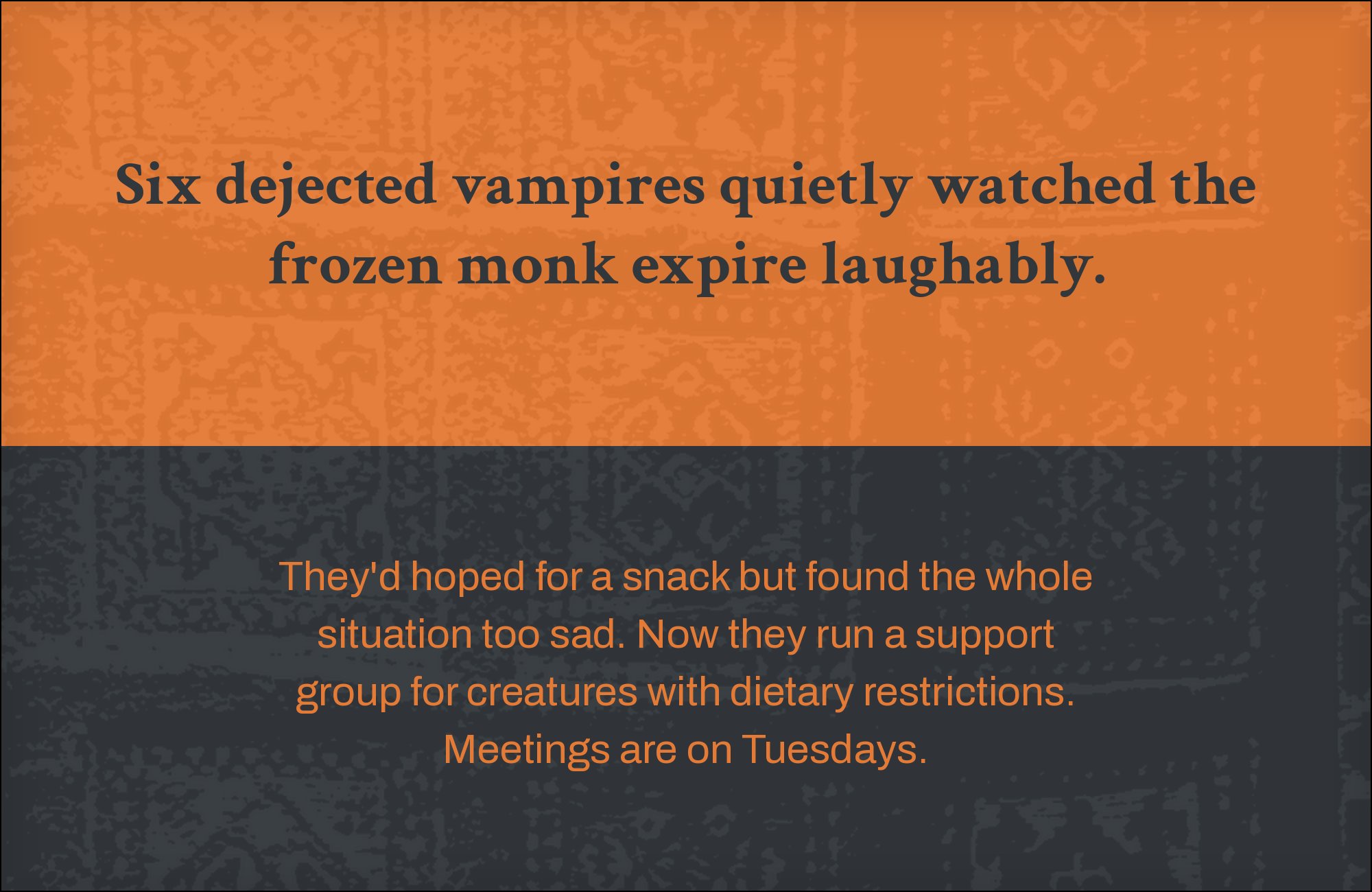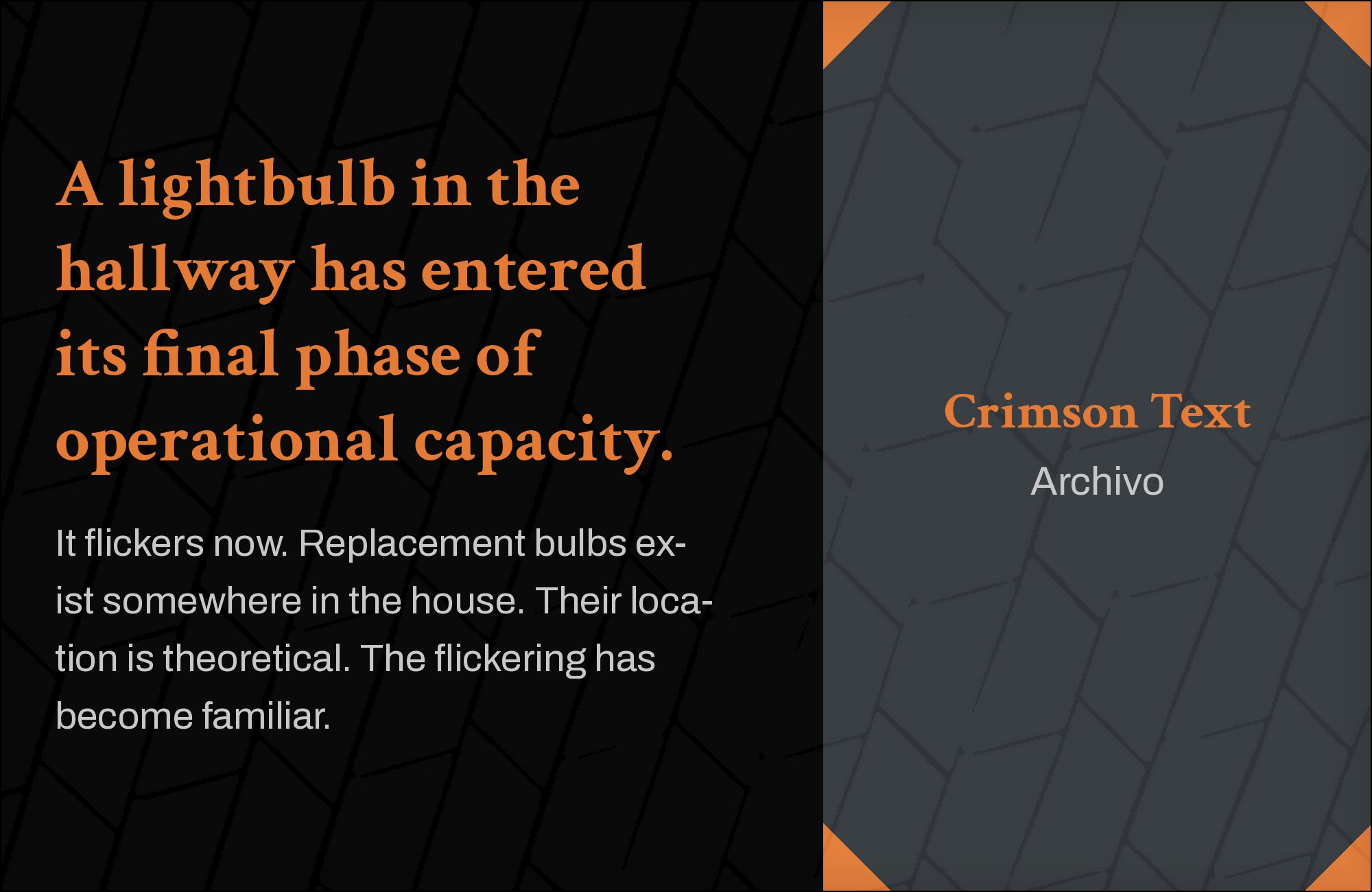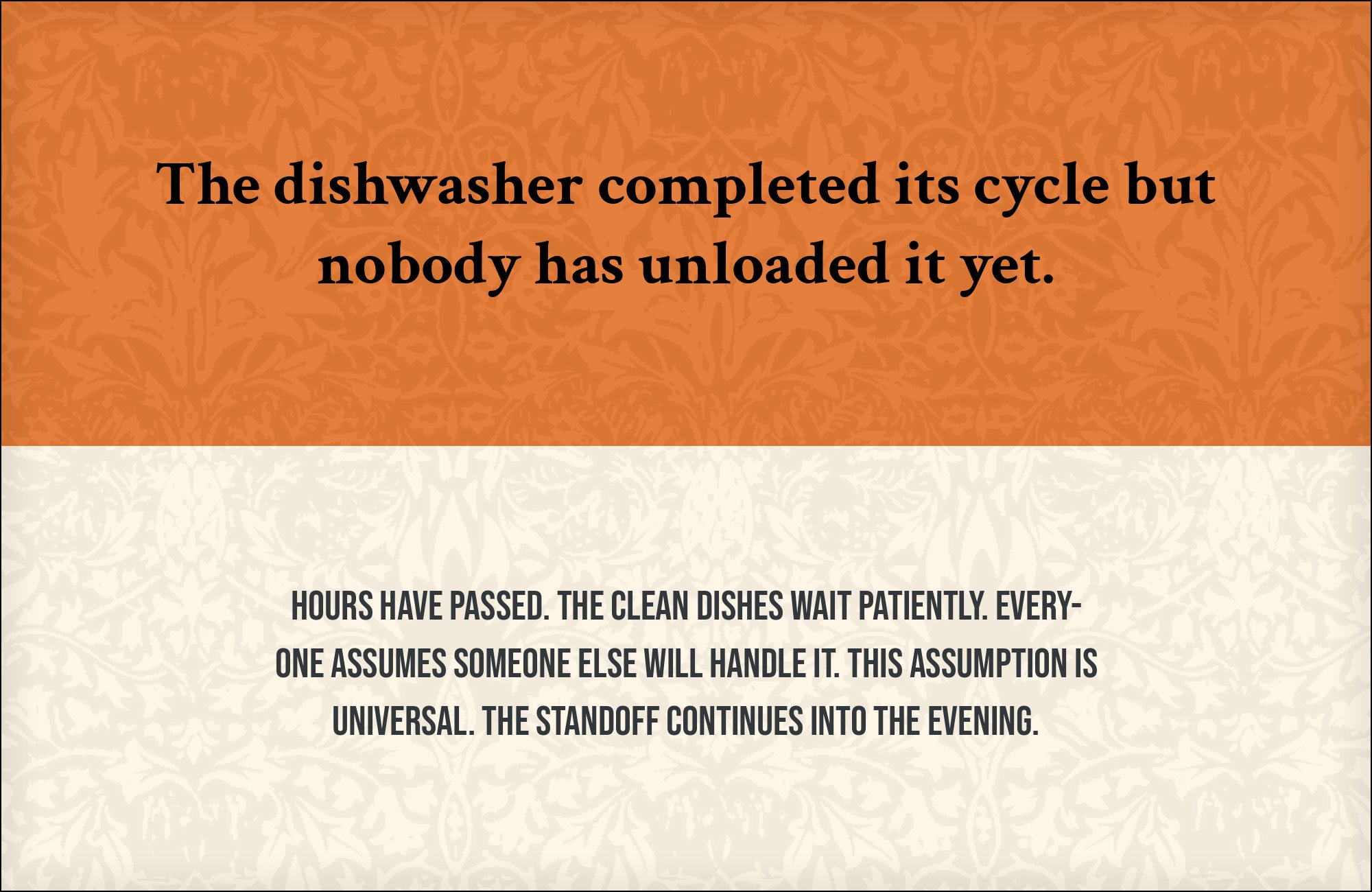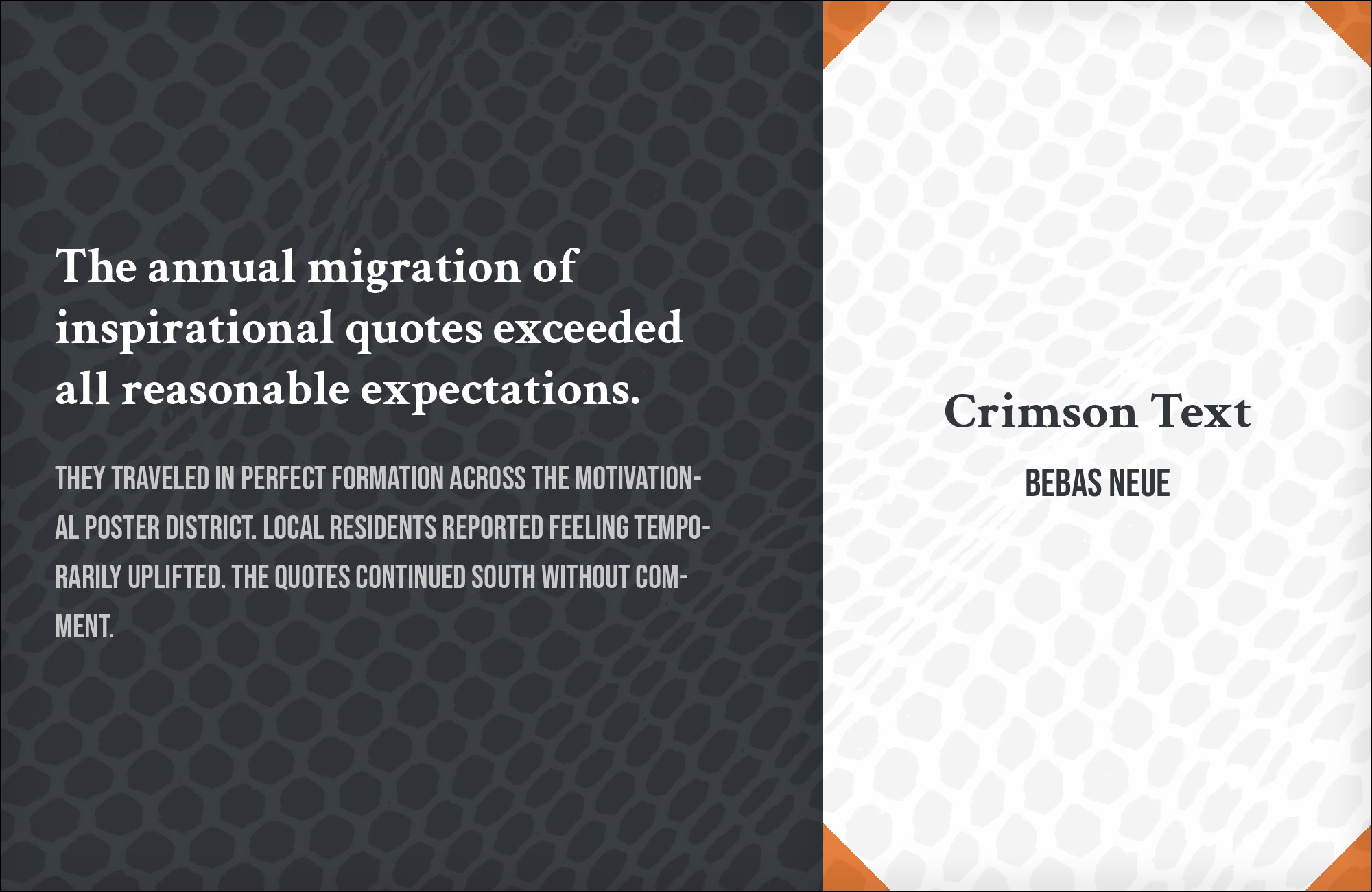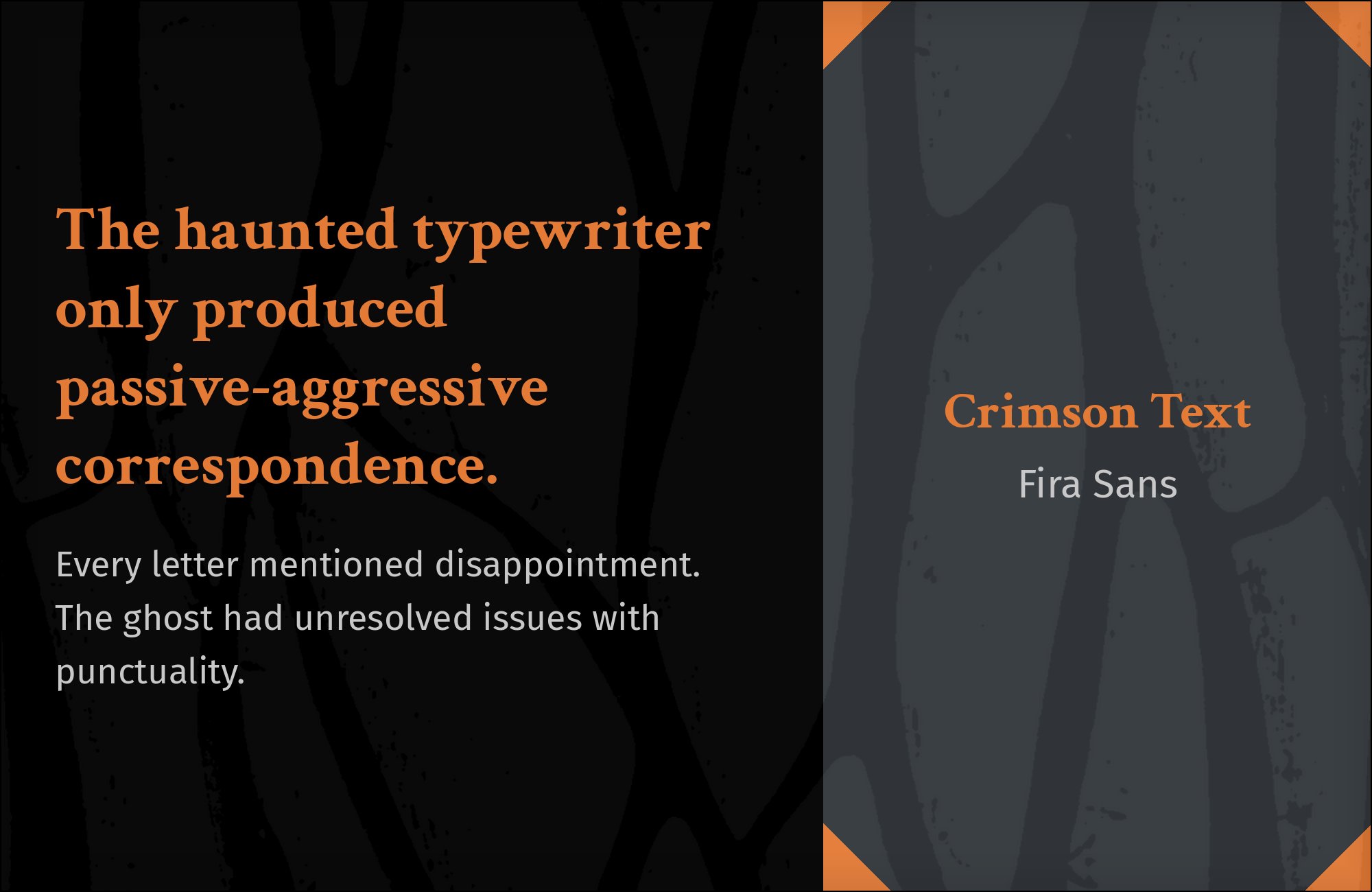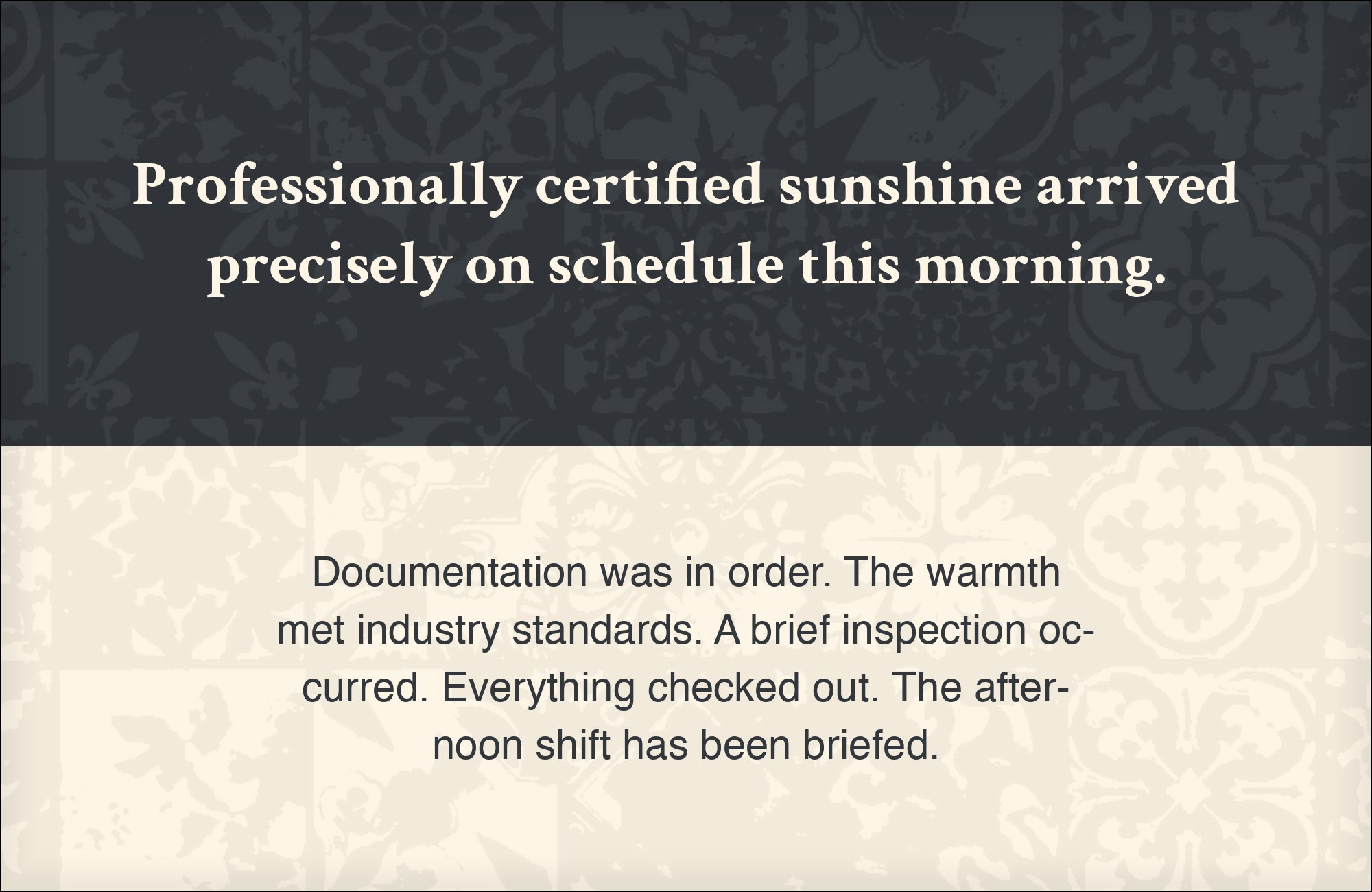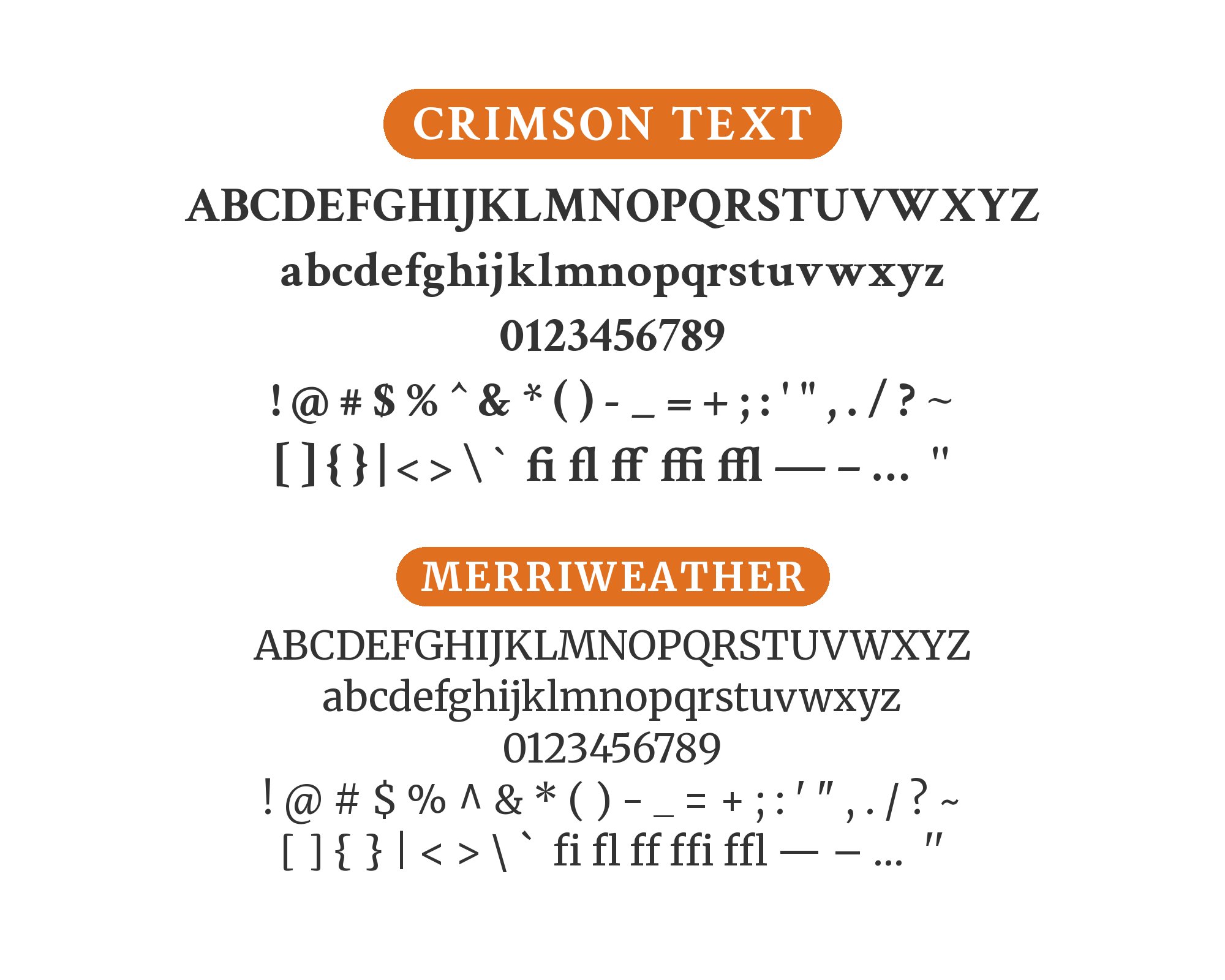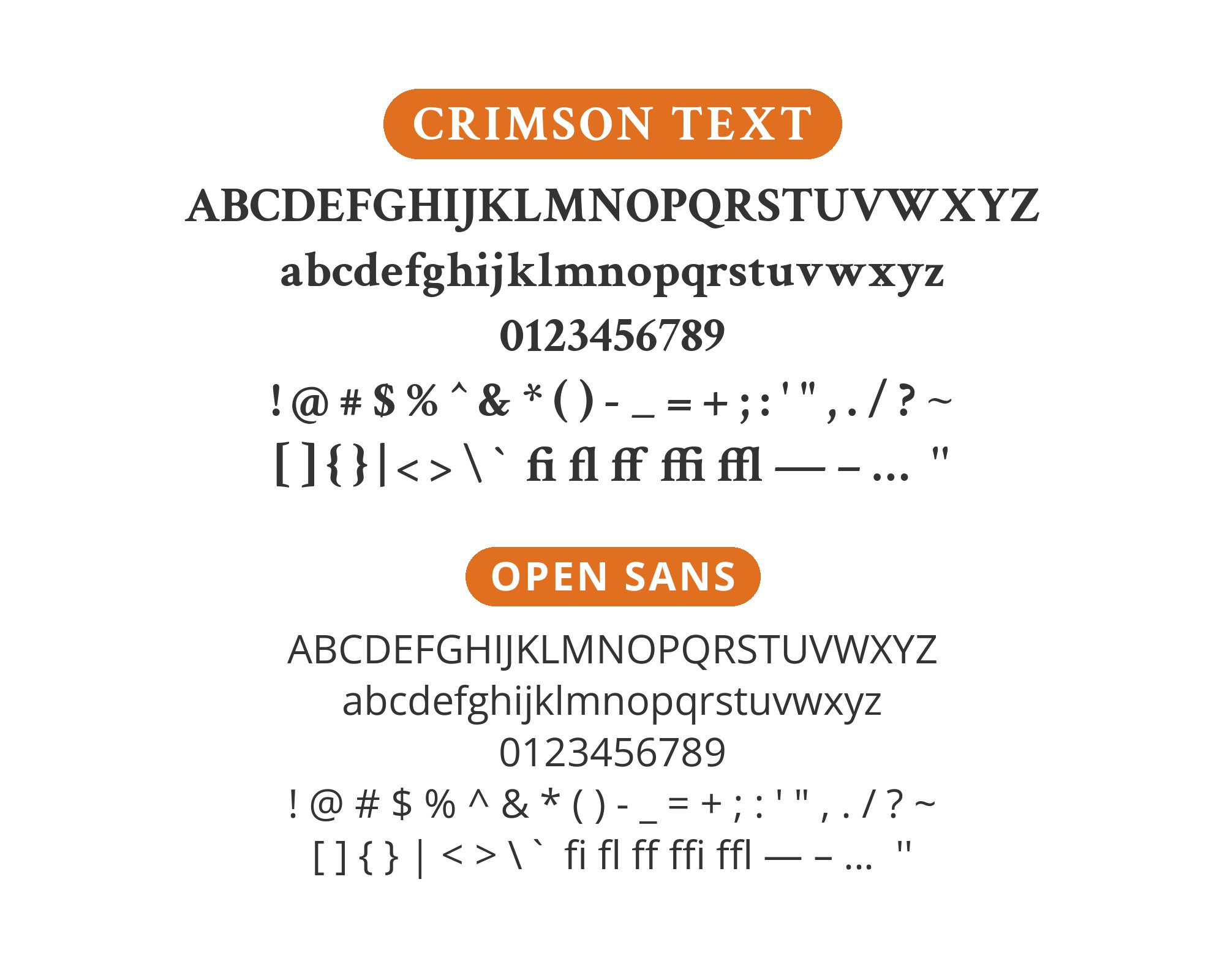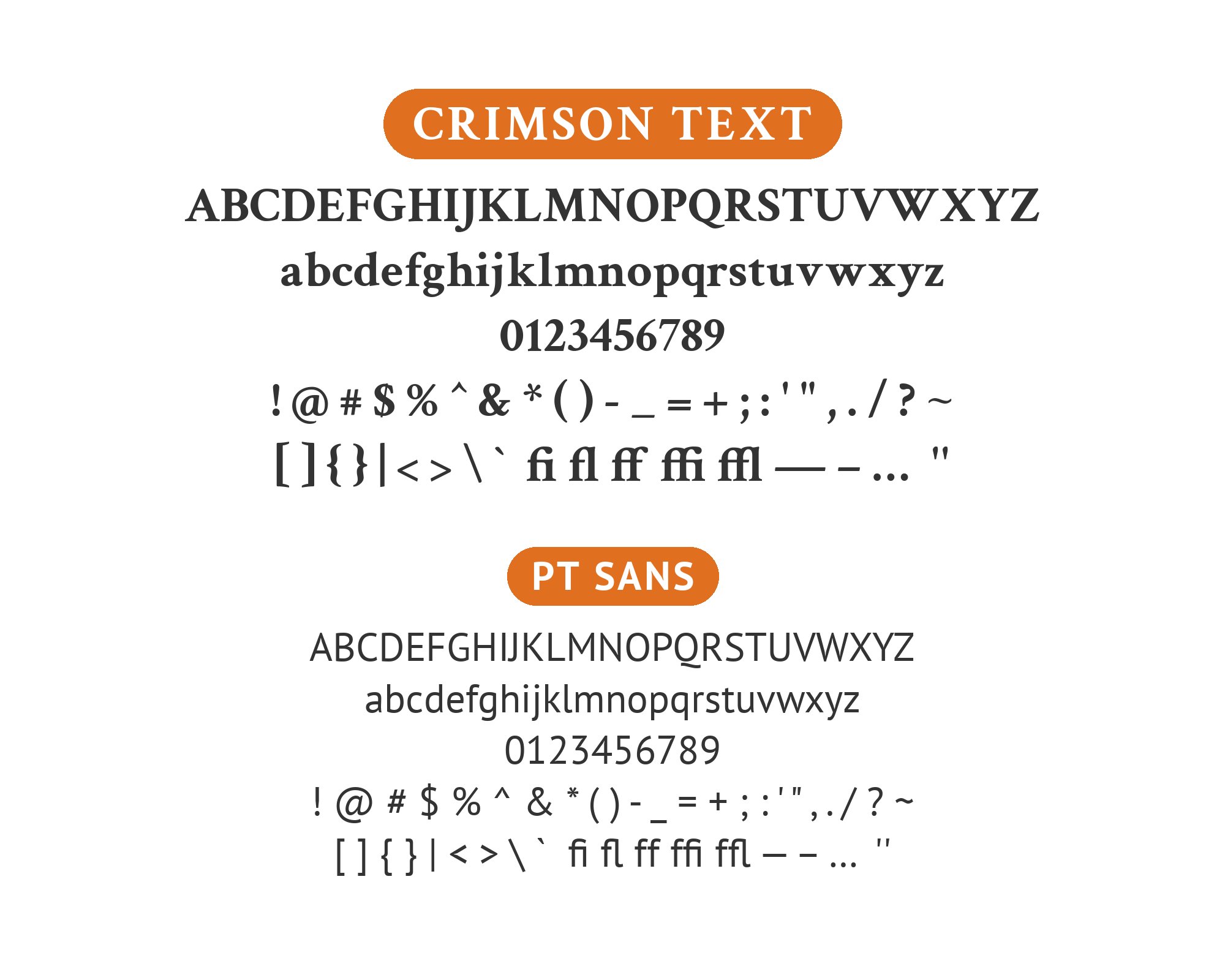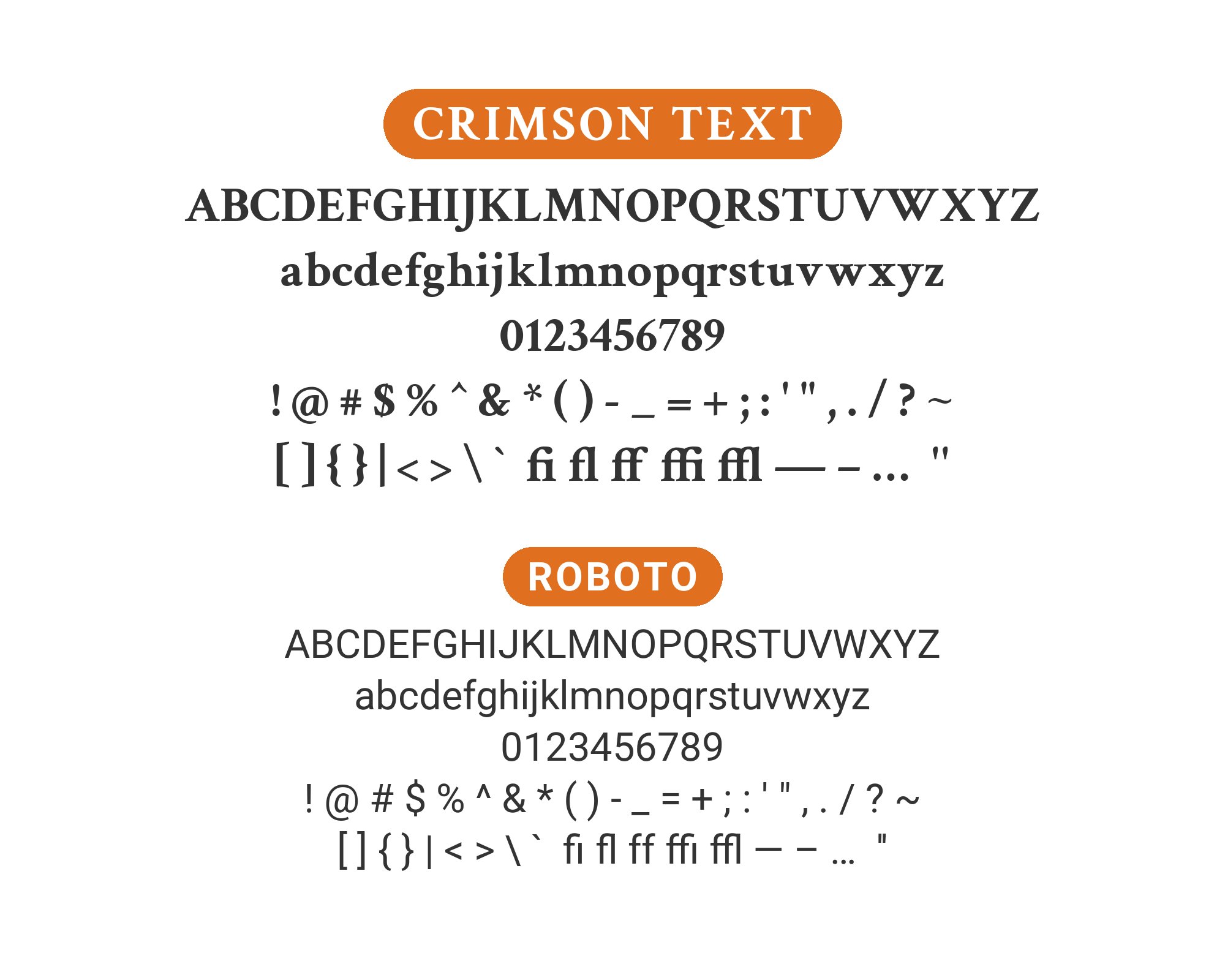
Crimson Text pairs great with Futura, Open Sans and Roboto. All 14 pairings are shown below in real rendered specimens, with the reason each one works.
What fonts go with Crimson Text? Ask first what the face is for. It is a book serif built for paragraphs, not for posters, so the partner’s job is almost never to match it — it is to do everything Crimson Text deliberately refuses to do.
Sebastian Kosch released Crimson Text in 2010 as an open-source text face drawn in the old-style tradition, and he named his models directly: Jan Tschichold’s Sabon, Robert Slimbach’s Arno and Minion, and Jonathan Hoefler’s Hoefler Text. The result inherits the Garamond lineage — a modest stroke contrast, angled stress, small and evenly cut serifs, and a restrained x-height that keeps the word shapes distinct down the column. A companion called Crimson Headline was announced and never shipped, which matters here: the family has no display cut of its own. Kosch later redrew the design as Crimson Prime, and in 2019 Jacques Le Bailly produced Crimson Pro for Google, a revision of the same skeleton.
That missing display weight sets the entire pairing logic. Crimson Text has no bold-enough, tight-enough cut to run a headline against its own body copy, so nearly every documented system hands the display role to a second family and keeps Crimson Text for reading. The archive evidence splits into three patterns: a geometric or grotesque sans on top, which is by far the most common; a second serif with more contrast or more screen weight, which produces an editorial register; and a plain neutral sans underneath, carrying the labels, buttons and captions a book serif handles badly. Here are 14 fonts that pair well with Crimson Text, ordered by how well the evidence supports them.
1. Futura
Paul Renner drew Futura for the Bauer Type Foundry in 1927 as a Bauhaus-adjacent experiment: circles, triangles and straight lines, with almost nothing left of the humanist pen. That is the single largest structural distance you can put between a partner and a Garamond-lineage serif, and it explains why three separately documented sites on Typewolf (Healthyish, VO2 Group and Thisispaper) all reached for the same combination. Futura’s low x-height and wide, circular bowls make it poor at long body copy and excellent at short, confident headlines, which is exactly the division Crimson Text needs. Set Futura in the display sizes and in tracked-out caps for navigation, keep Crimson Text at 17 to 19 pixels for running text, and resist the temptation to let Futura creep into paragraphs.
Steve Matteson designed Open Sans under commission from Google, releasing it in 2011 as a humanist sans with an unusually large x-height, upright stress and open, low-contrast forms tuned for small sizes. Those proportions are the reason it works as Crimson Text’s support layer rather than its headline: at ten or eleven pixels, in tracked caps, Open Sans stays legible where Crimson Text’s fine old-style serifs start to break up. A documented quote-archive site uses precisely that arrangement — Crimson Text for every justified, hyphenated paragraph, and tracked Open Sans caps for button labels — and independent site-scanning data records the pair live on a corporate insurance site. Use Open Sans for interface furniture, form fields and microcopy, and let Crimson Text own the reading.
3. Roboto
Christian Robertson designed Roboto in-house at Google and shipped it as Android’s system typeface in 2011, giving it a mechanical skeleton with largely geometric forms and friendly, open curves. Its virtue beside Crimson Text is negative: it contributes no discernible voice at all, so the serif keeps every bit of the page’s character. A hi-fi review site documented in the Fonts In Use archive runs exactly this structure, with Crimson Text set for the long review articles and Roboto handling the secondary sans work around them, and independent scanning data records the same pairing on an ecommerce site. Reach for Roboto when the product is an interface first and a publication second, and when consistency across Android and the web matters more than expression.
4. Merriweather
Eben Sorkin designed Merriweather as a screen-first text serif, with sturdier stems, a taller x-height, lower contrast and larger, more slab-like serifs than a traditional book face carries. Pairing two serifs usually fails, but this one holds because those differences are structural rather than stylistic: Merriweather reads as heavier and more present at the same point size, so it can sit above Crimson Text as a heading without either face looking like a mistake. Two documented systems use it that way — a review site setting video headings in Merriweather roman and italic, and a tutoring brand that runs Merriweather plus Crimson Text across both its website and its physical space. Keep the size step generous, at least 1.5x, so the hierarchy reads as intentional.
Alexandra Korolkova, Olga Umpeleva and Vladimir Yefimov drew PT Sans at ParaType in 2009 for the Russian public type project, a humanist sans built to sit beside PT Serif across Cyrillic and Latin alike. That brief gives it proportions unusually close to a text serif’s — moderate x-height, slightly narrow width, and terminals cut on an angle rather than square. Next to Crimson Text the page colour barely shifts: the texture hardly changes when you move from serif paragraphs to sans captions. Two independent archives record the same production using the combination, together with Playfair Display. Choose PT Sans when you want a sans that joins the serif rather than argues with it, particularly in multilingual or Cyrillic work.
6. Playfair Display
Claus Eggers Sørensen designed Playfair Display for Google Fonts in 2011 from late-18th-century English high-contrast models — hairline strokes against heavy stems, flat unbracketed serifs, and a tall x-height that holds at large sizes. Setting one serif over another normally muddies a page, but here the contrast ratios do the separating: Playfair Display’s hairline-to-stem jump is extreme where Crimson Text’s is moderate, so the two never read as the same voice. A documented design publication uses exactly this stack. Keep Playfair Display above roughly 32 pixels, where its hairlines survive rendering, and never let it drop into a caption, where it will thin out and disappear.
7. Fira Sans
Erik Spiekermann and Ralph du Carrois designed Fira Sans for Mozilla’s Firefox OS, releasing it in 2013 as a humanist sans engineered for small sizes on cheap screens: slightly squared curves, sturdy stems, and a weight range that grew to 16 weights in 2014. The practical value beside Crimson Text is that it stays solid where the serif goes fragile. Stanford University Press’s Good Pictures: A History of Popular Photography, designed by Kevin Barrett Kane in 2019, pairs Fira Sans and Crimson across a full 7.5 by 9.25 inch format. Use it for captions, running heads, folios and notes, where its many weights let you build several levels of hierarchy without introducing a third family.